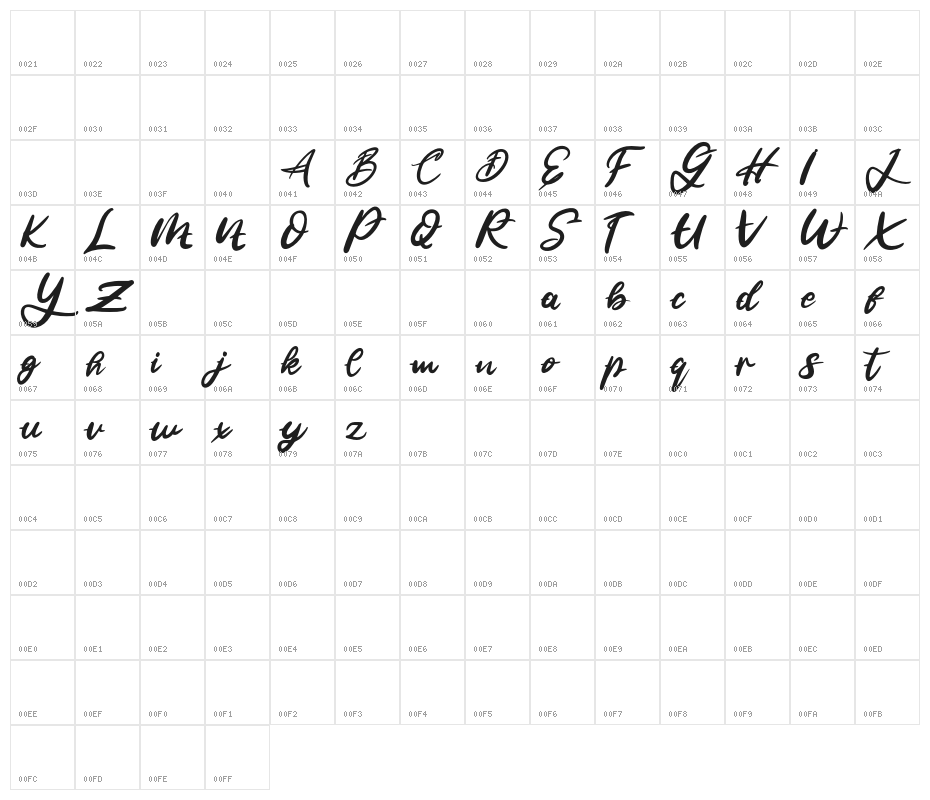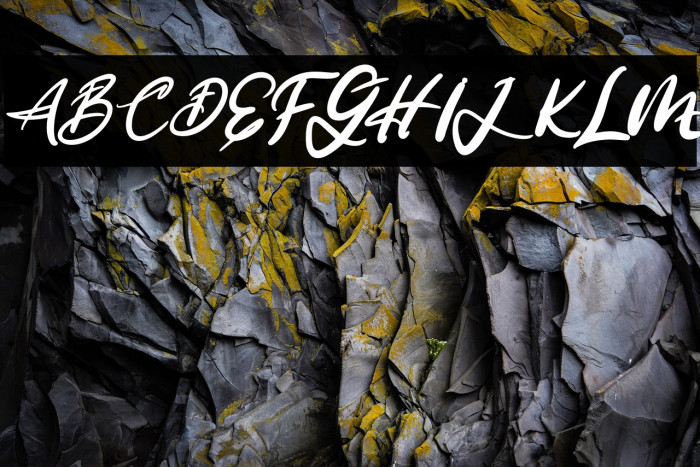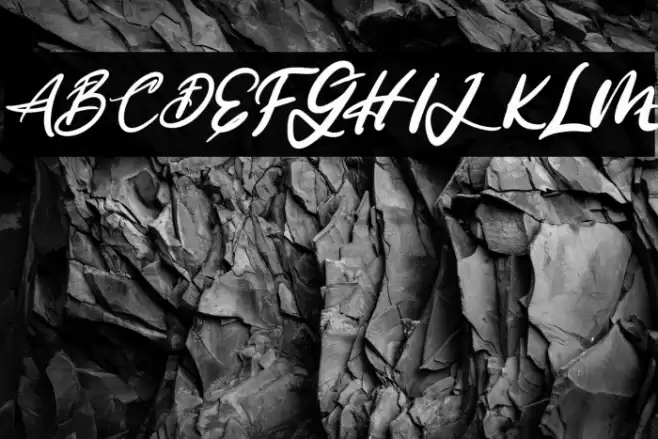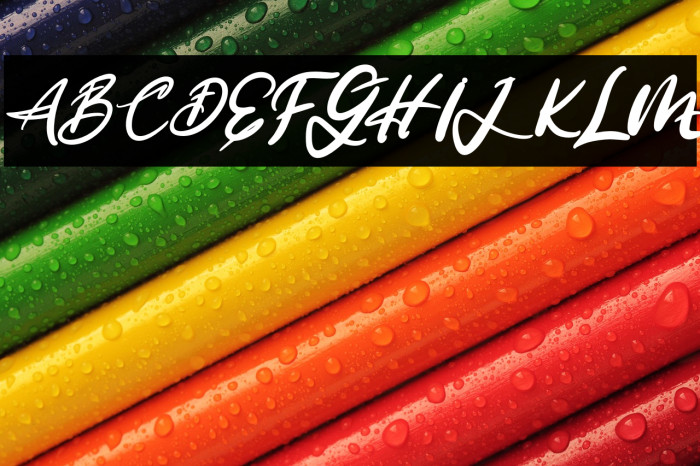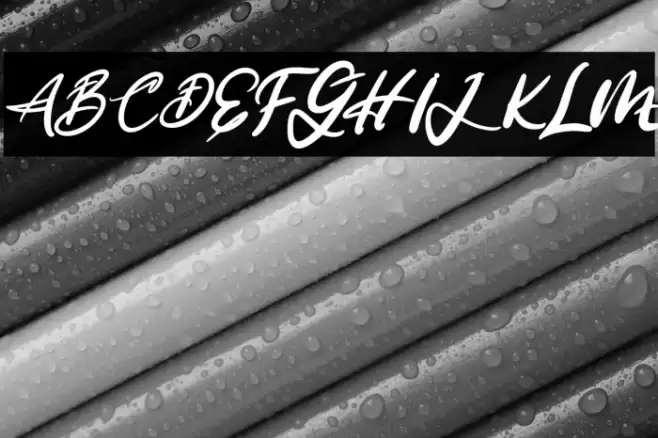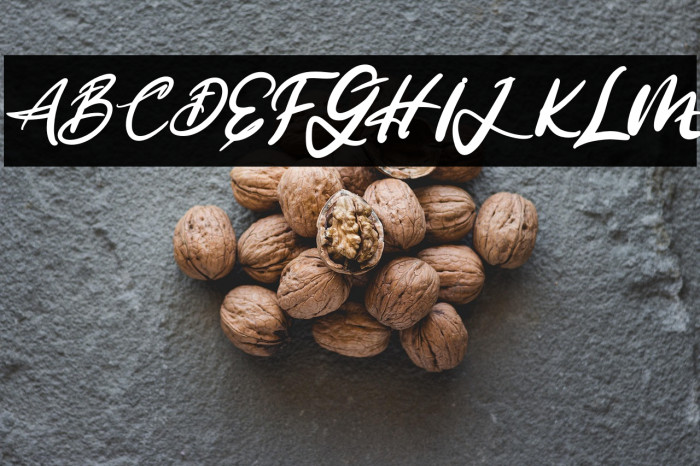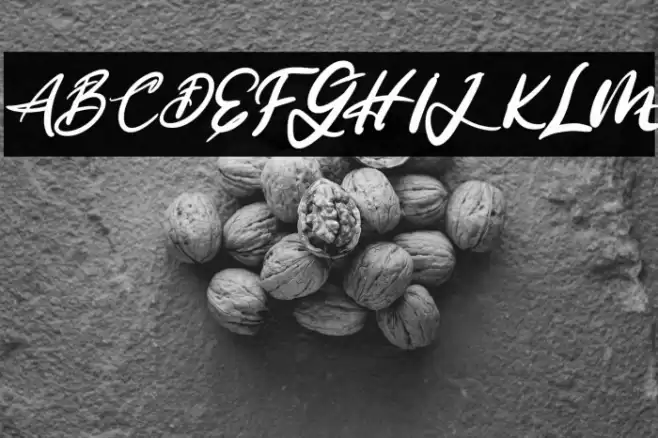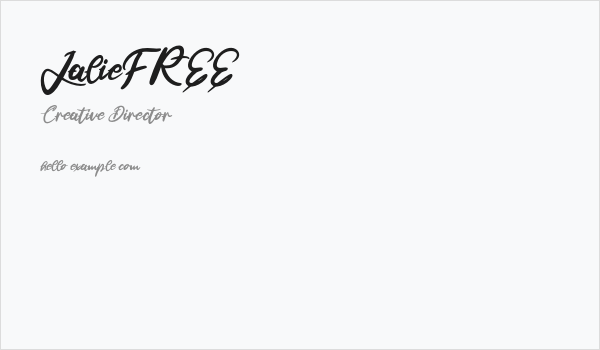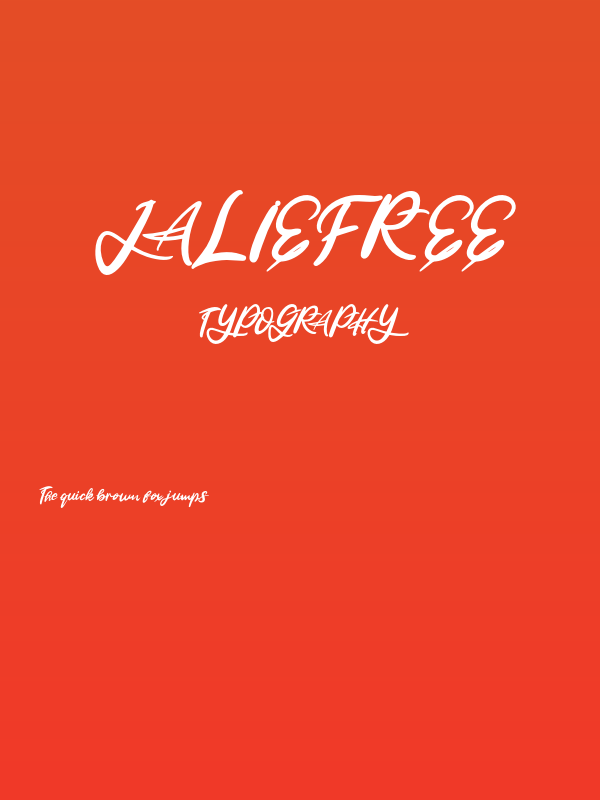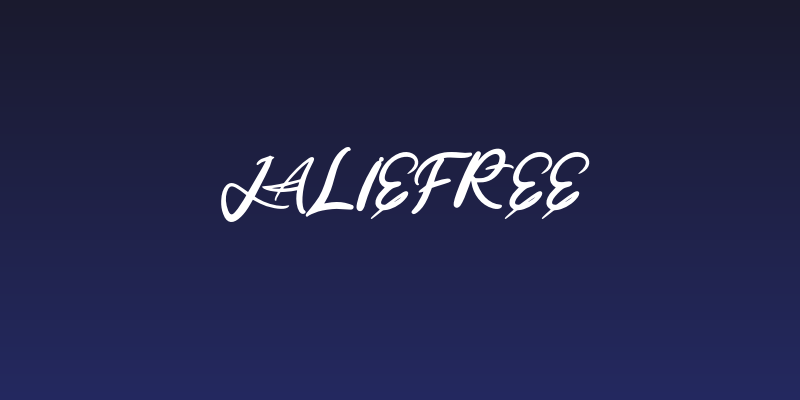
JalieFREE Font
JalieFREE Description
This font features a flowing, cursive style with elegant, sweeping strokes that give it a handwritten appearance. The uppercase letters are bold and dynamic, with distinctive loops and curves that add a sense of movement and flair. The lowercase letters maintain a consistent style, with smooth connections between characters that enhance the script's fluidity. The numbers and special characters are crafted to match the overall aesthetic, ensuring a cohesive look across all text elements. This font's artistic and expressive nature makes it ideal for creative projects.